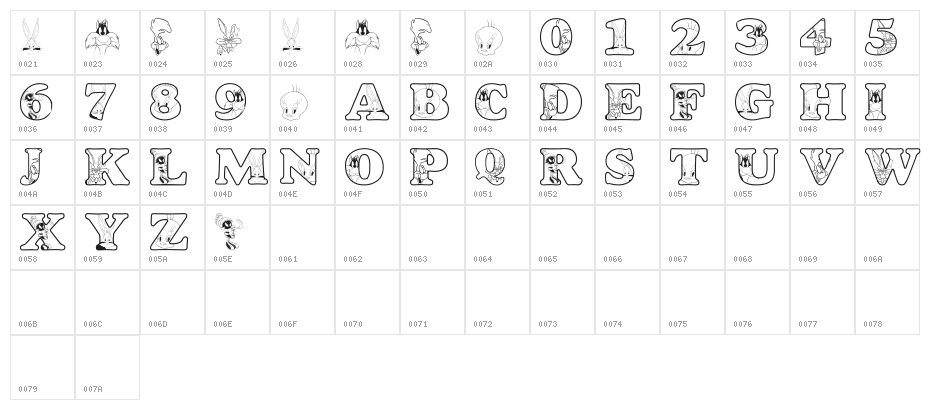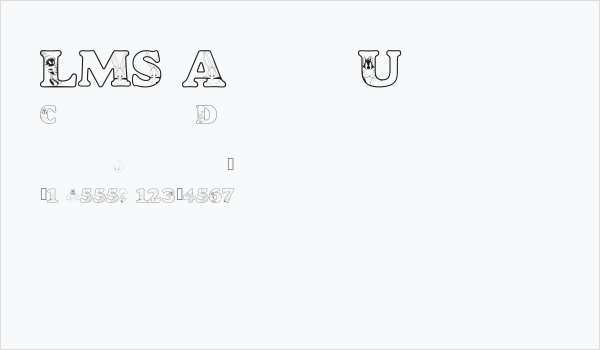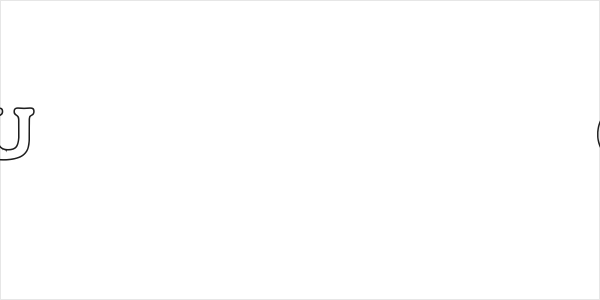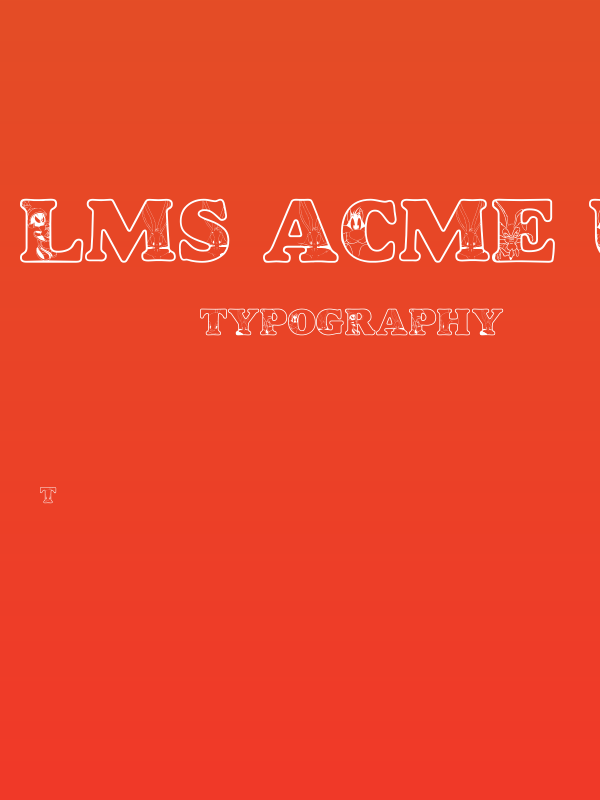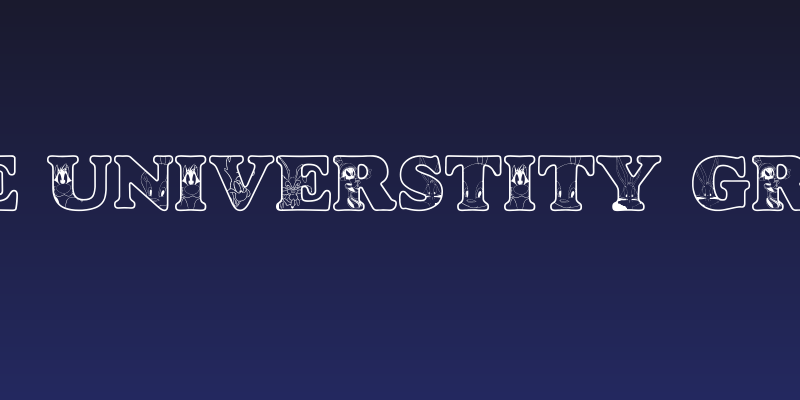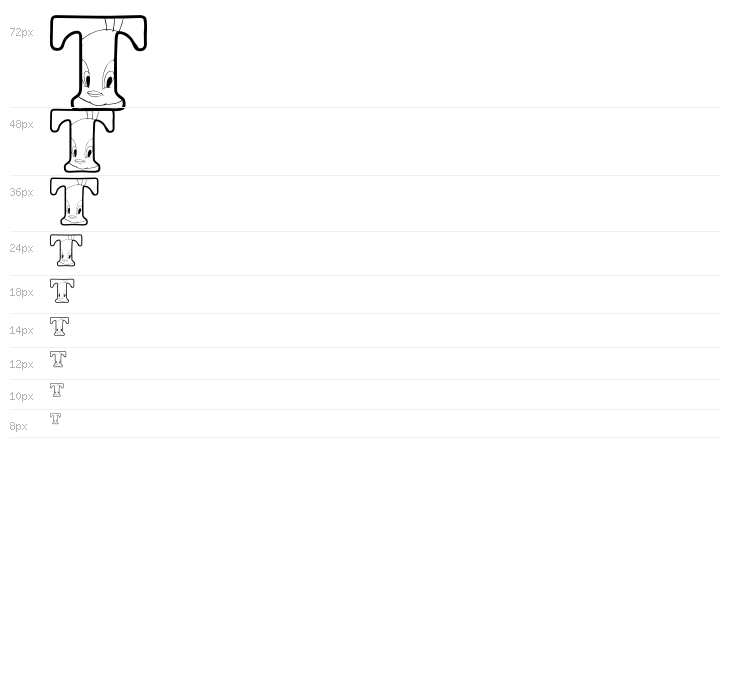
LMS Acme Universtity Graduates Font
LMS Acme Universtity Graduates Description
This font features a playful and decorative style, incorporating popular cartoon characters within the outlines of each letter and number. The uppercase letters are bold and have a classic serif structure, while the numbers maintain a similar aesthetic. The characters are filled with intricate illustrations, adding a whimsical and nostalgic touch. This font is ideal for projects that aim to capture a sense of fun and creativity, making it perfect for children's materials, themed events, or playful branding. The detailed artwork within each character adds a unique visual interest, ensuring that the font stands out in any design.
Proposed ProjectsIdeal for children's books, themed party invitations, playful branding, and merchandise design.